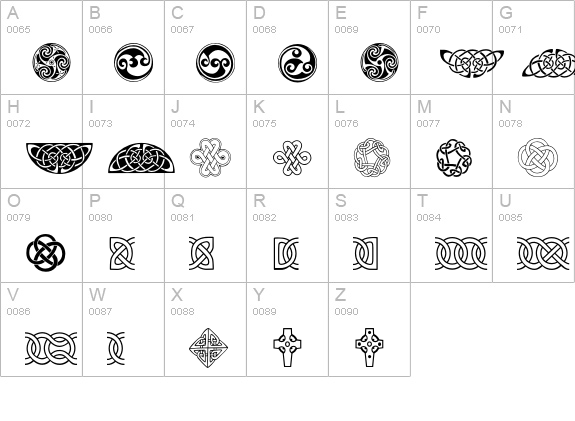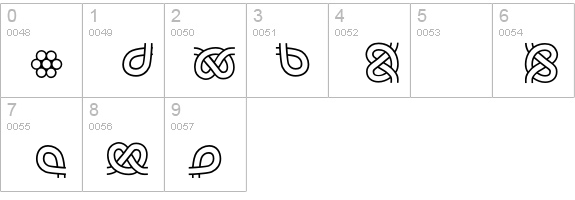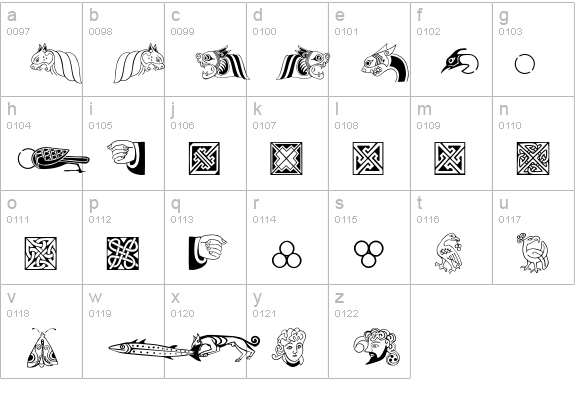
KellsExtras Font Details
Introducing KellsExtras, a stunning and versatile font that embodies elegance and sophistication. With its intricate details and timeless appeal, KellsExtras is the perfect choice for those seeking a touch of class in their designs. This remarkable font boasts a wide range of additional characters, making it truly unique and adaptable. From decorative flourishes to ornate accents, KellsExtras offers endless possibilities for creative expression. One of the most remarkable aspects of KellsExtras is that it is absolutely free! That's right, this exceptional font is freely available to download at FontsMarket.com. Whether you're a professional designer or a creative enthusiast, you can now enjoy the beauty and versatility of KellsExtras without any cost. The effortless elegance of KellsExtras makes it suitable for a variety of projects. From wedding invitations and branding materials to book covers and signage, this font will elevate any design to new heights. Its clean lines and balanced proportions ensure legibility, while its intricate details add a touch of luxury. KellsExtras is designed to captivate and inspire. Its meticulously crafted characters effortlessly combine classic charm with a contemporary twist, making it a truly timeless font. Whether used for headlines, body text, or decorative elements, KellsExtras will never fail to make a lasting impression. So why wait? Download KellsExtras now, and unlock a world of creative possibilities. Experience the beauty, versatility, and freedom that this exceptional font has to offer. Get ready to elevate your designs and leave a lasting impact with KellsExtras, available for free at FontsMarket.com.